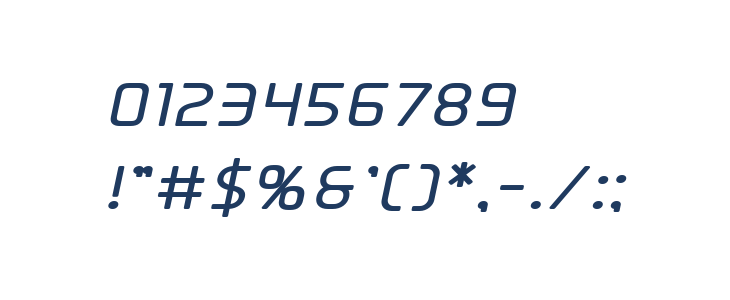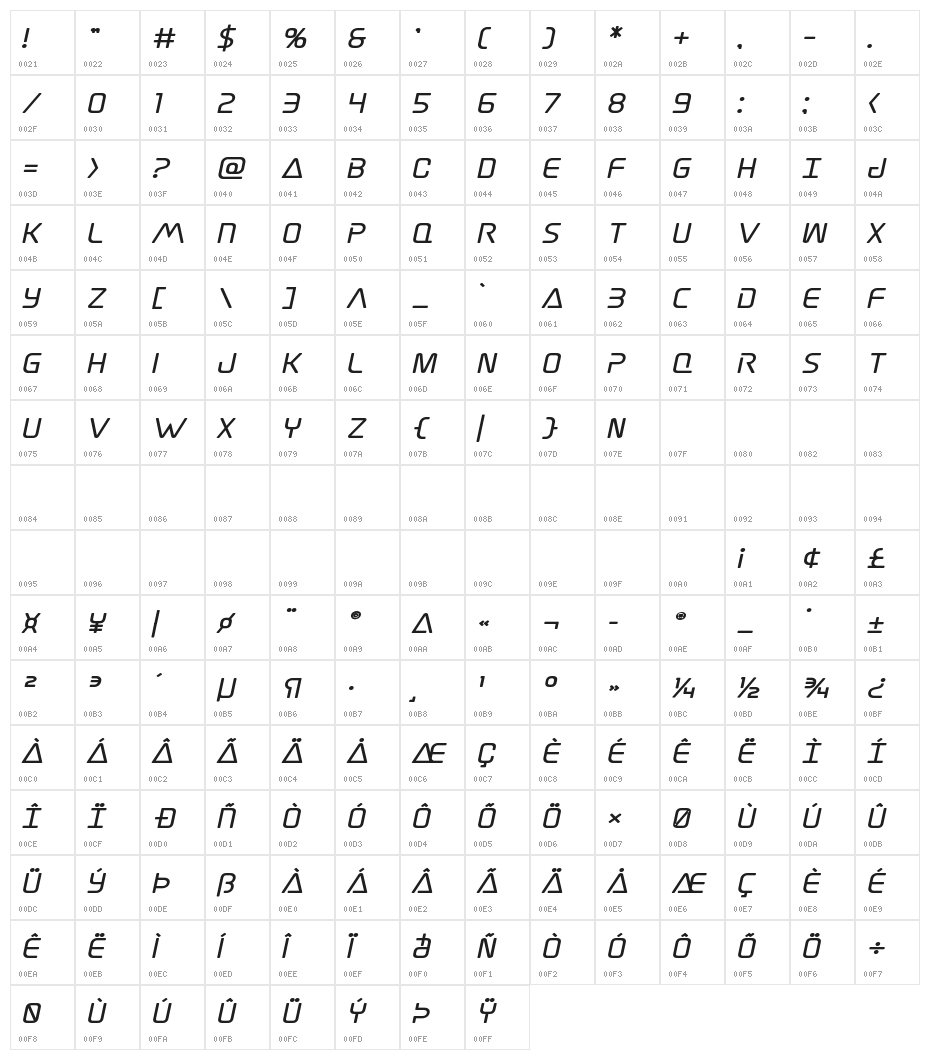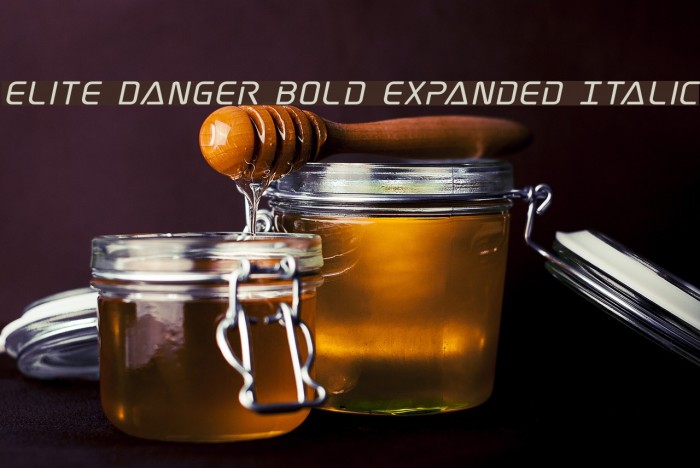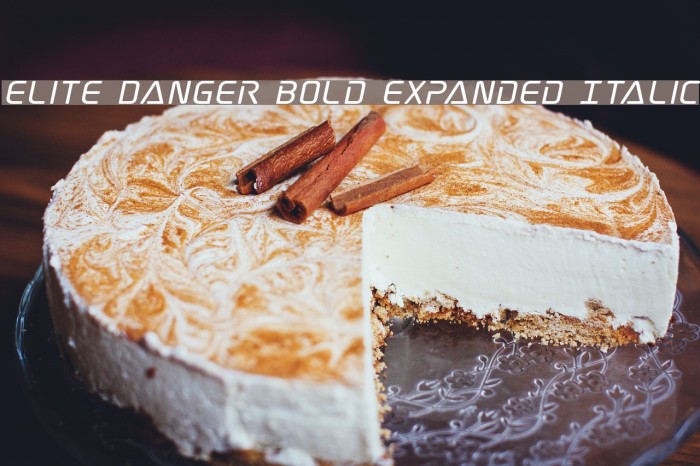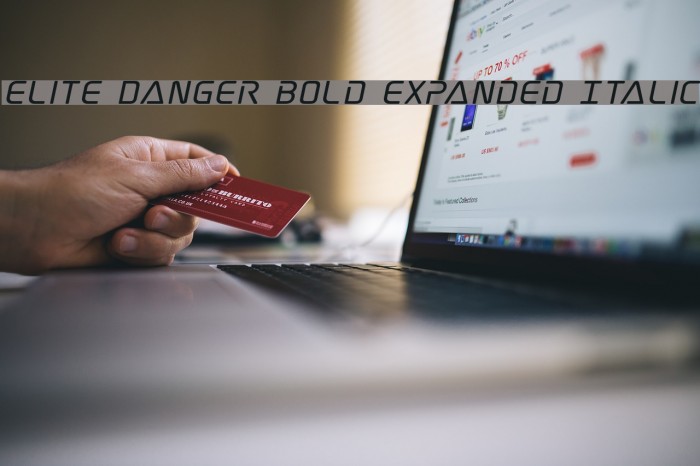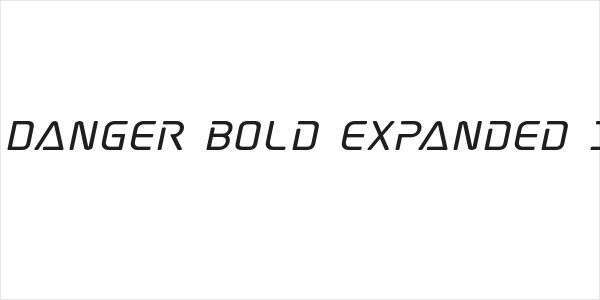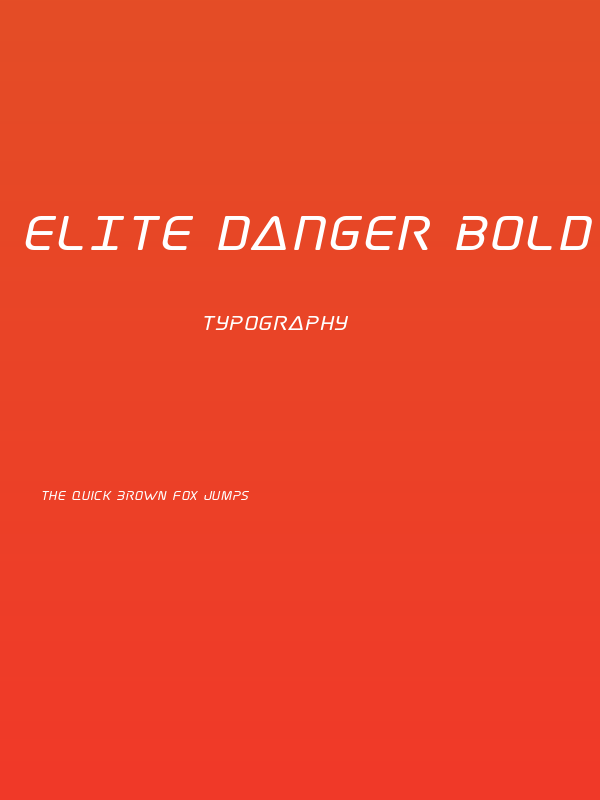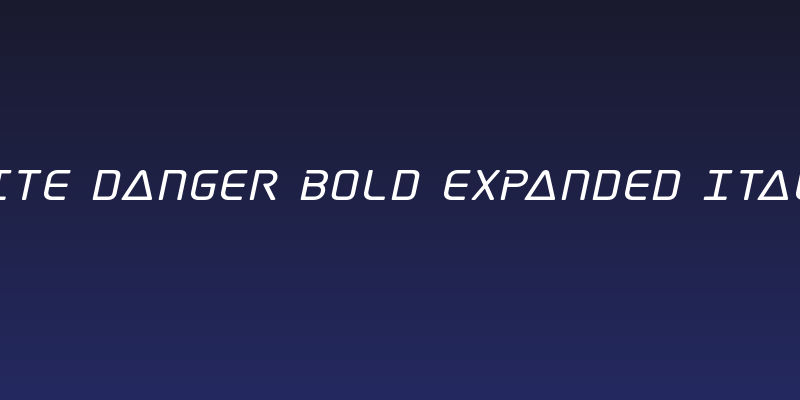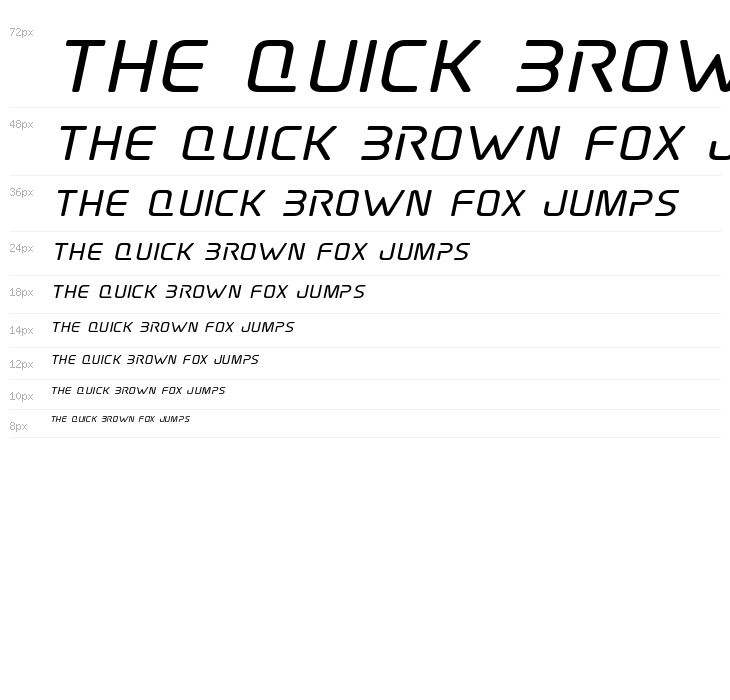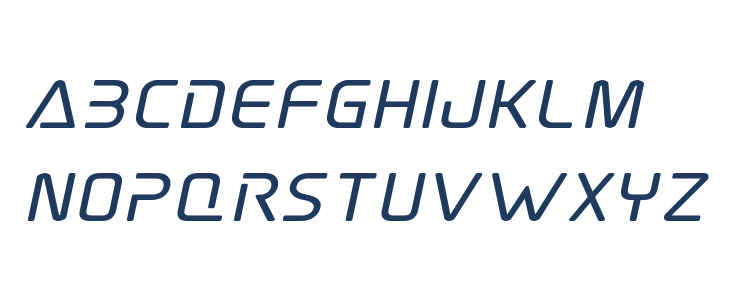
Elite Danger Bold Expanded Italic Font
Elite Danger Bold Expanded Italic Description
This font features a bold and expanded style with a distinct italic slant, giving it a dynamic and modern appearance. The characters are designed with a geometric precision, incorporating sharp angles and clean lines that convey a sense of speed and efficiency. The uppercase letters are particularly striking, with a futuristic aesthetic that makes them stand out. The lowercase letters maintain the same angular design, ensuring consistency across the typeface. Numbers and special characters are crafted with the same attention to detail, making this font versatile for various applications. The overall look is sleek and contemporary, ideal for projects that require a forward-thinking and innovative feel.